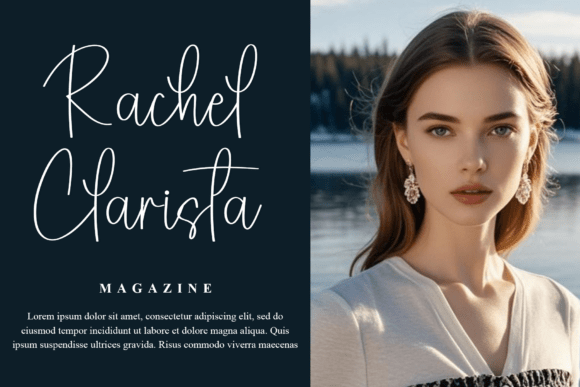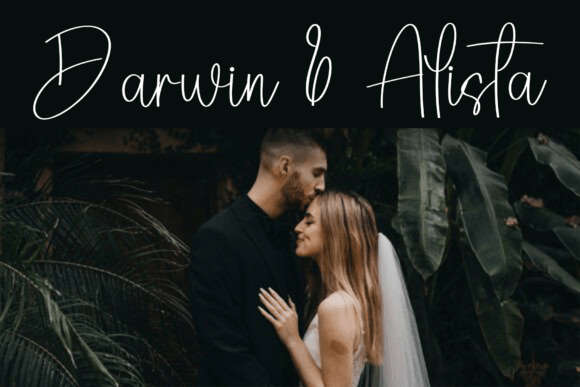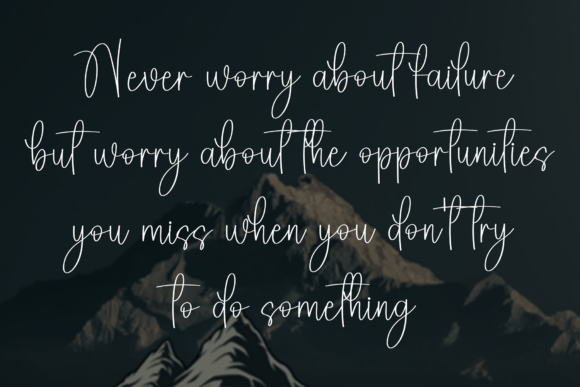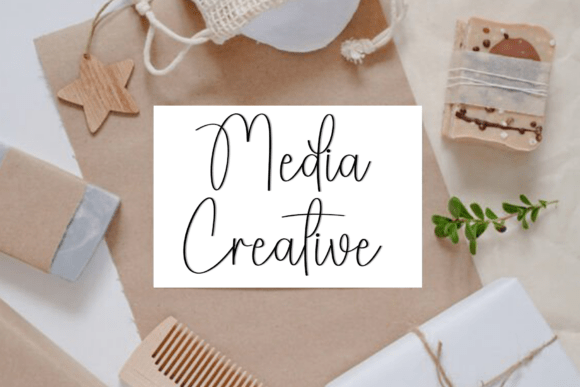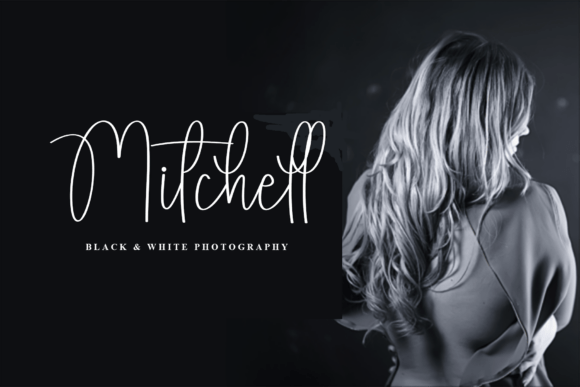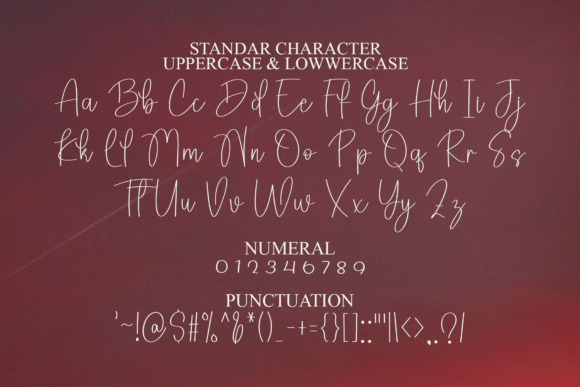
The Magic of Boyfriend Font: A Holiday Design Essential
It’s that time of the year again – the holiday season is just around the corner, and with it comes the pressure to create stunning designs that capture the festive spirit. I still remember the year I was tasked with designing a Christmas card for a client’s family reunion. I spent hours scouring the internet for the perfect font, only to end up with a bland, generic typeface that failed to impress. Fast forward to today, and I’m excited to share with you a game-changing font that will make your holiday designs shine: Boyfriend Font.
What Makes Boyfriend Font So Special?
Boyfriend Font is a festive and merry typeface that embodies the essence of the holiday season. With its decorative elements and whimsical flair, it adds a touch of enchantment to your designs. Whether you’re working on greeting cards, gift tags, or holiday-themed projects, this font brings a cheerful and nostalgic ambiance to your words.
So, what do I love about Boyfriend Font? 🤔 Here are a few highlights:
- ✨ Festive and fun: This font is perfect for holiday designs, with a playful and cheerful vibe that’s sure to delight.
- ✅ PUA encoded: With PUA encoding, you can access all the amazing glyphs and ligatures with ease, making it a breeze to create stunning designs.
- 🎉 Whimsical flair: The font’s decorative elements add a touch of magic to your designs, making them truly special.
And, like any font, it’s not without its quirks. Here are a few things to keep in mind:
- ⚠️ Limited use cases: While Boyfriend Font is perfect for holiday designs, it may not be the best choice for more formal or professional projects.
- 🤔 May require some experimentation: With so many glyphs and ligatures to play with, it may take some time to get familiar with the font’s capabilities.
The Story Behind Boyfriend Font
Boyfriend Font was designed with the holiday season in mind. The font’s creator wanted to capture the magic and whimsy of the holidays, and bring it to life through typography. With its decorative elements and playful flair, Boyfriend Font is the perfect addition to any holiday design project.
| What is Boyfriend Font? | Boyfriend Font is a festive and merry typeface that’s perfect for holiday designs. |
| Is Boyfriend Font PUA encoded? | Yes, Boyfriend Font is PUA encoded, making it easy to access all the amazing glyphs and ligatures. |